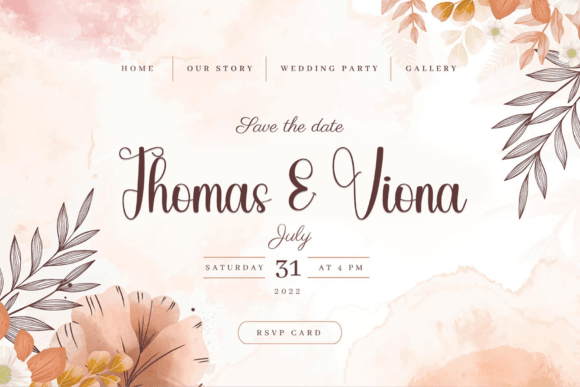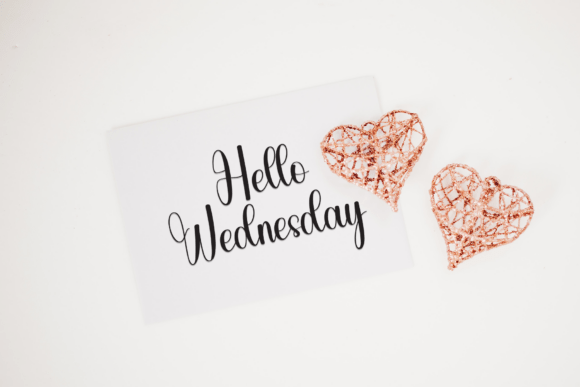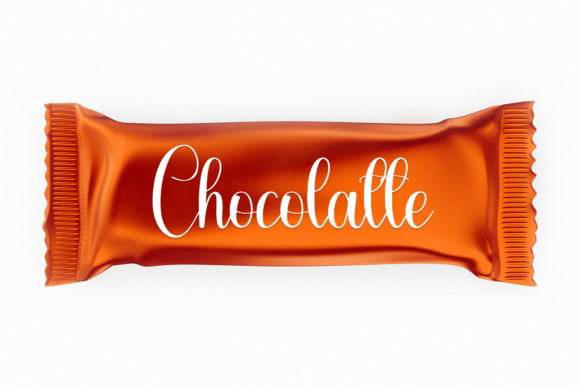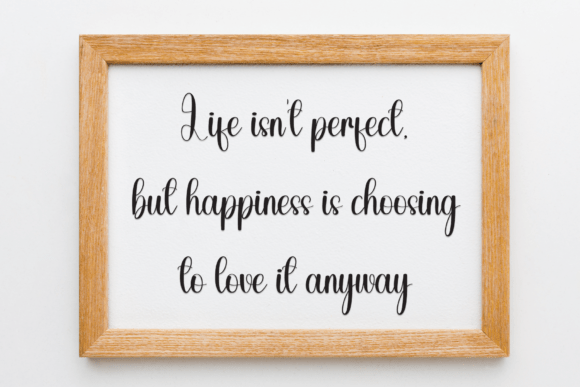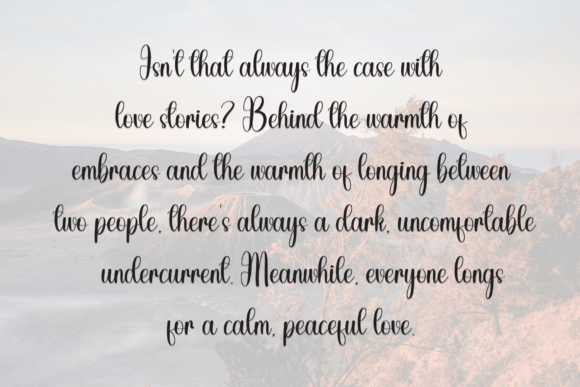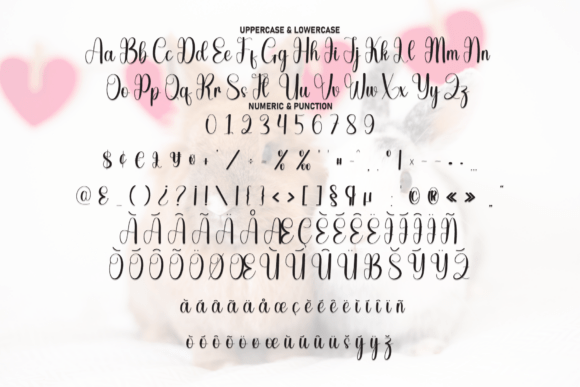
The Enchanting Allure of Bunnylove Font
As a designer, I’ve had my fair share of moments where I’ve struggled to find the perfect font for a project. But one font that has left a lasting impression on me is the captivating Bunnylove Font. Its warm, friendly, and playful vibe has made it a staple in my design toolkit. In this article, I’ll share my experience with Bunnylove Font, its features, and how to make the most of it in your designs.
A Design Moment of Inspiration
I recall working on a wedding invitation project for a dear friend. The couple wanted a design that reflected their fun and bubbly personalities. As I scrolled through my font library, I stumbled upon Bunnylove Font. Its sweet and playful charm immediately caught my attention. I knew I had found the perfect fit. The font added a dash of cheerfulness to the design, making it a perfect reflection of the couple’s joyful spirits.
So, what makes Bunnylove Font so special? Here are a few things I love about it:
- ✨ Warm and Friendly Vibe: Bunnylove Font exudes a sense of warmth and friendliness, making it perfect for designs that require a personal touch.
- ✅ Highly Versatile: This font can be used for a wide range of projects, from wedding invitations to greeting cards, and even social media graphics.
- 💕 Playful and Whimsical: Bunnylove Font has a playful charm that adds a touch of whimsy to any design.
While Bunnylove Font is an excellent choice, it’s not without its quirks. Here are a few things to keep in mind:
- 🤔 Limited Use in Formal Designs: Due to its playful nature, Bunnylove Font may not be the best choice for formal designs, such as business proposals or corporate branding.
- ⚠️ Requires Attention to Kerning: As with any script font, kerning can be a bit tricky. Make sure to adjust the kerning to ensure optimal readability.
A Practical Guide to Using Bunnylove Font
- Experiment with OpenType features, such as Stylistic Alternates and Swashes, to add more personality to your text.
If you love Bunnylove Font, you may also want to consider the following similar fonts:
- Kaitlynn Script: A beautiful, handwritten script font with a warm and inviting vibe.
- Pacifico: A stunning, modern script font with a relaxed and beachy feel.
- Great Vibes: A fun, handwritten script font with a lively and energetic personality.
- Alex Brush: A lovely, handwritten script font with a sweet and charming vibe.
The Designer Inspiration Behind Bunnylove Font
Bunnylove Font was designed with the intention of creating a warm and friendly typeface that would add a touch of whimsy to any design. The designer aimed to craft a font that would evoke feelings of joy and playfulness, making it perfect for designs that require a personal touch.
| Font Name | Bunnylove Font |
| What is the best use for Bunnylove Font? | Bunnylove Font is perfect for designs that require a warm, friendly, and playful vibe, such as wedding invitations, greeting cards, and social media graphics. |
| Is Bunnylove Font suitable for formal designs? | No, Bunnylove Font is not suitable for formal designs due to its playful nature. It’s best used for designs that require a personal touch. |
| Does Bunnylove Font come with OpenType features? | Yes, Bunnylove Font comes with OpenType features, such as Stylistic Alternates, Swashes, and Glyphs, which can be accessed in compatible design software. |